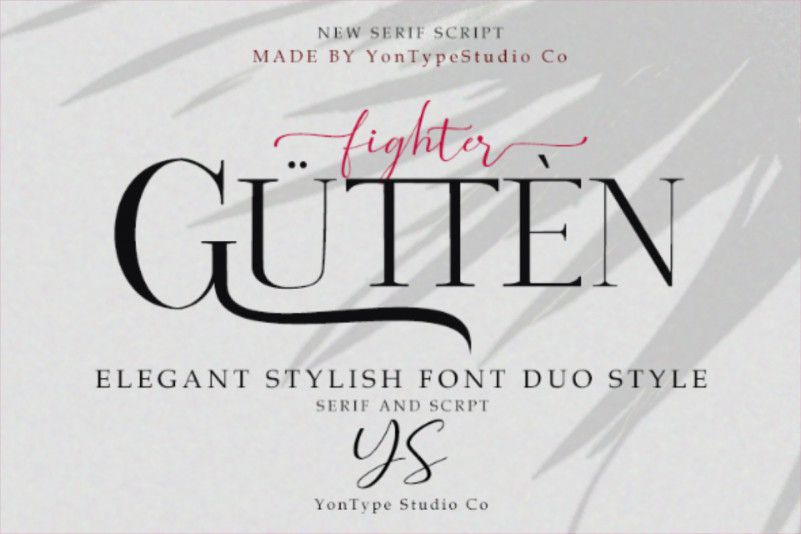
Gutten Fighter Font Duo
INTRODUCING elegant font duo serif and signature script
We give priority to professional impressions for several formal projects such as Branding logos, packaging products, business cards, and many more serif is equipped with full uppercase and lowercase puncation characters and multilangual support and features alternates and ligature
The signature script is equipped with full uppercase and lowercase numeric characters and puncation and multilanguage support and complete with beginning and ending swashes and 41 ligature characters